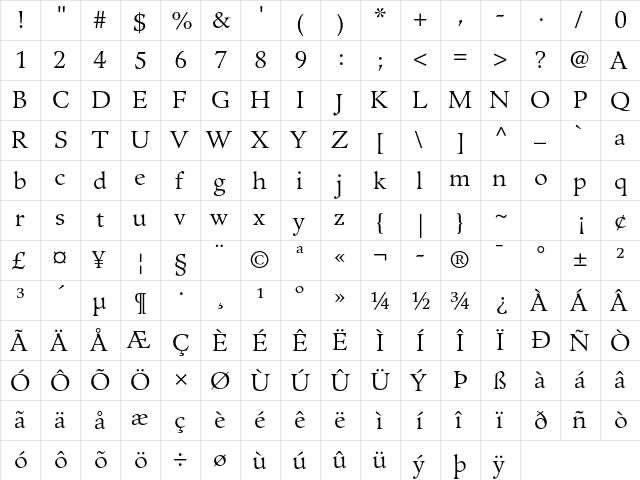
Guardi LT Std 55 Roman
| Designer | Reinhard Haus |
Design Context for Guardi LT Std Typeface
Guardi LT Std takes a measured approach to typography — its balanced proportions and neutral character make it a reliable workhorse for both digital and print work. The delicate stroke weight brings airiness and refinement to layouts.